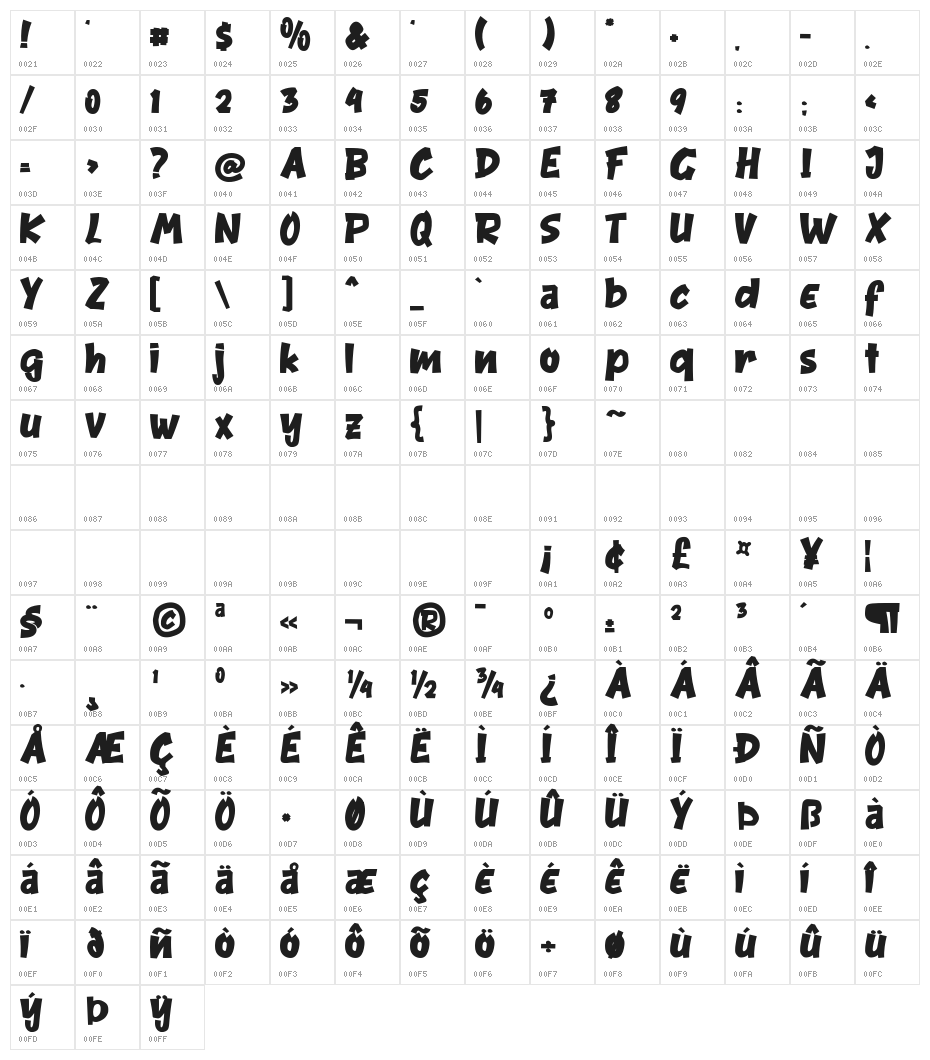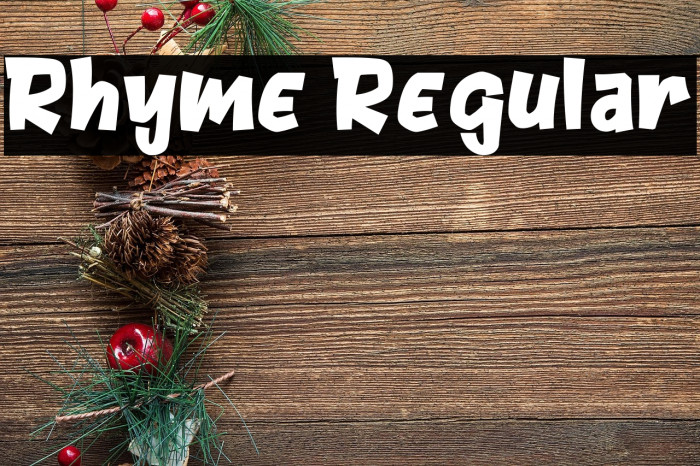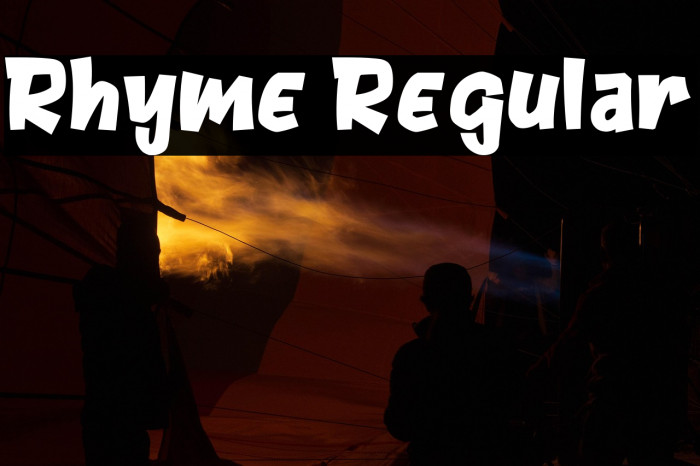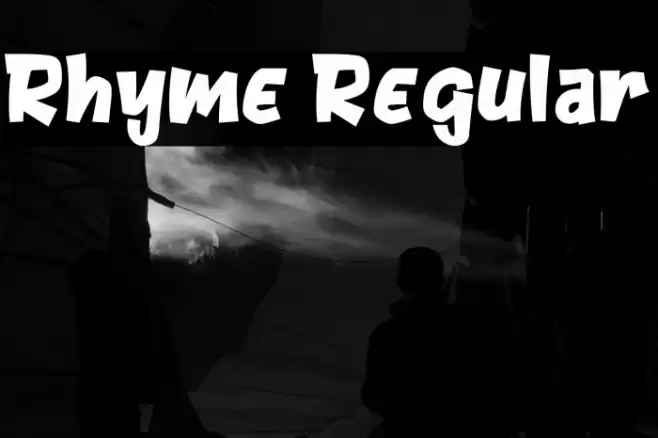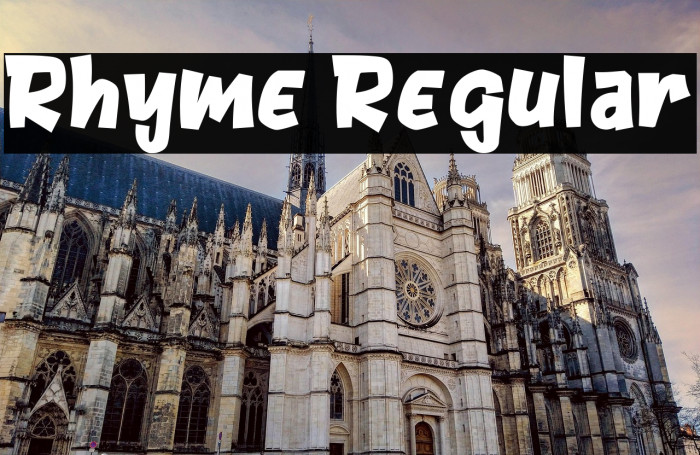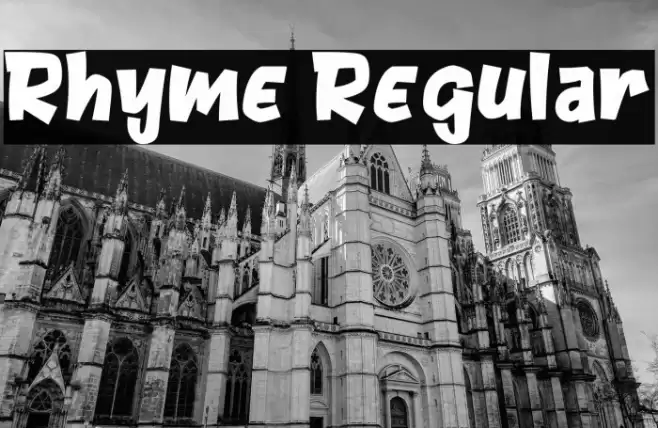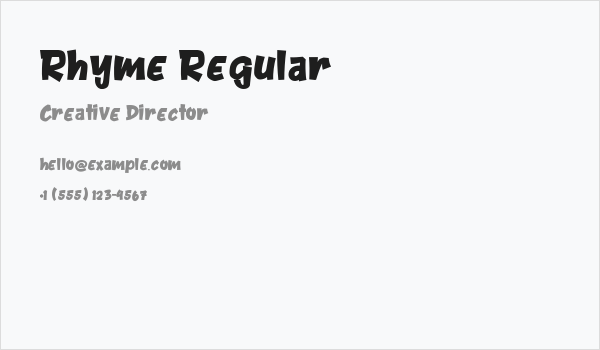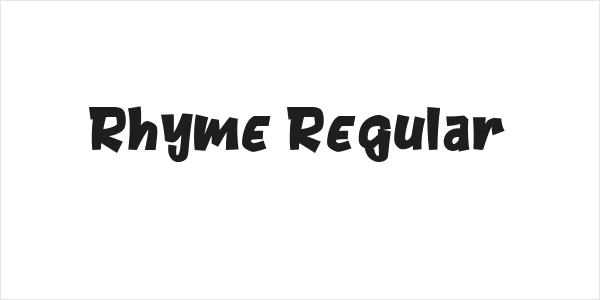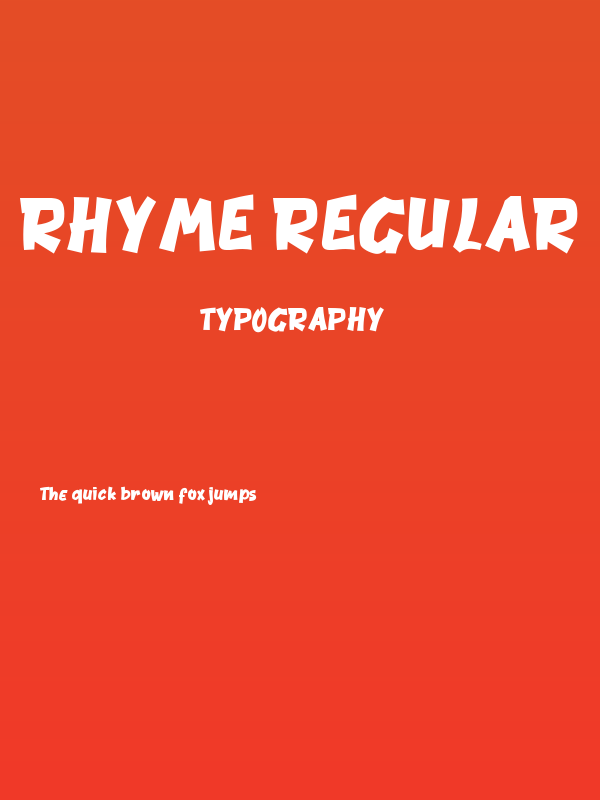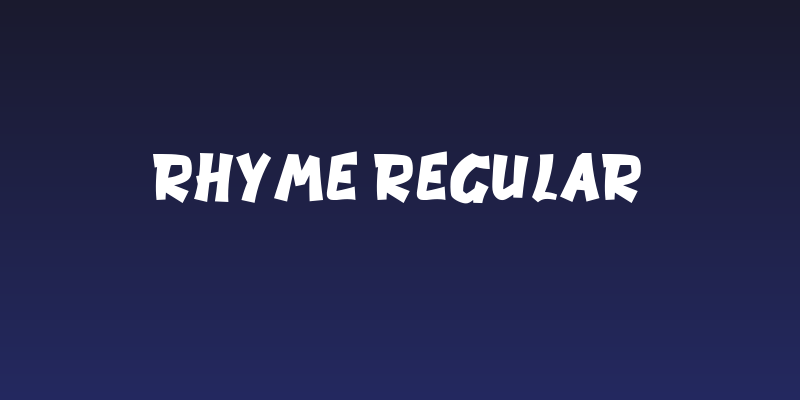
Rhyme Regular Font
Rhyme Regular Description
This playful and bold font features a unique, hand-drawn style with exaggerated curves and angles, giving it a lively and energetic appearance. The uppercase and lowercase letters maintain a consistent, whimsical design that adds a sense of fun and creativity. The numbers and special characters follow the same playful theme, making them perfect for projects that require a touch of personality. The font's thick strokes and irregular shapes make it stand out, ensuring that any text set in this style will capture attention and convey a sense of joy and spontaneity.
| Overall Style | Playful, Energetic, Whimsical |